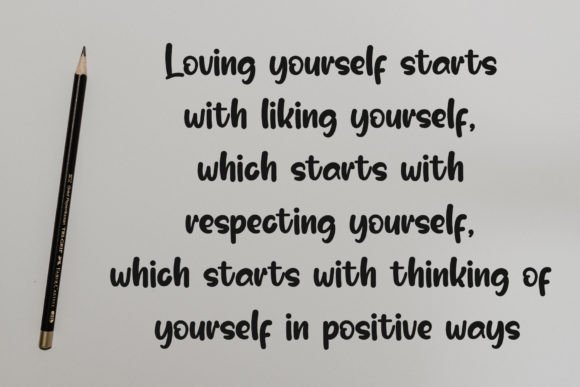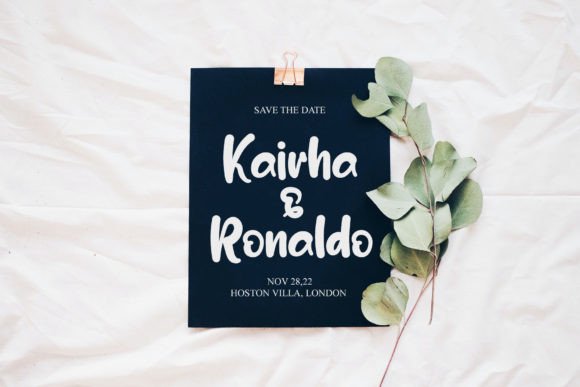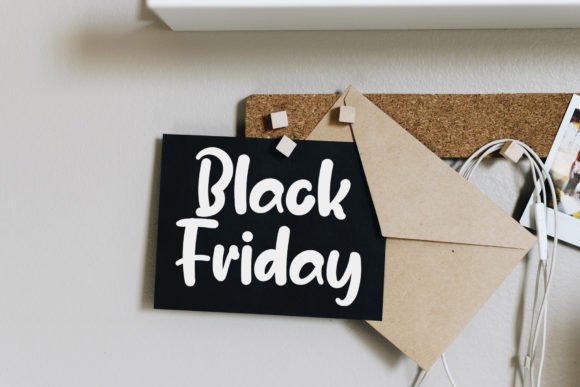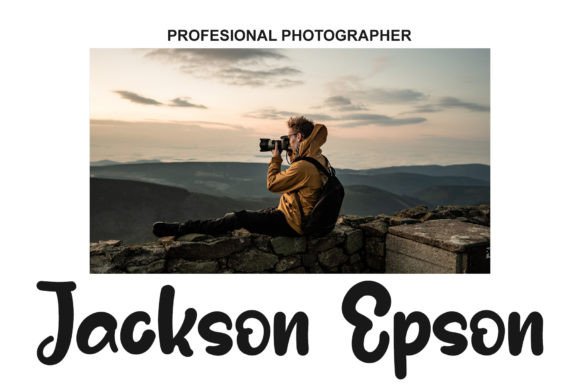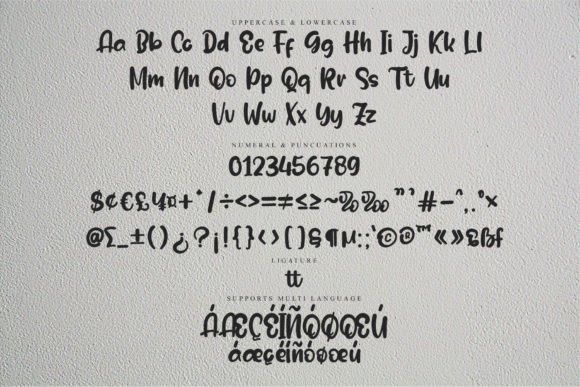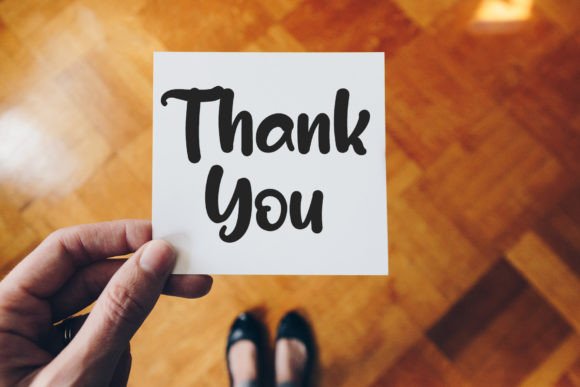
Introducing Garment Font: Elevate Your Designs with Elegance
Are you a designer, crafter, or DIY enthusiast looking for a font that can add a touch of sophistication to your projects? Look no further than Garment Font, a stunning display font perfect for magazines, crafts, and more. With its elegant and refined aesthetic, Garment Font is sure to become a staple in your fonts library.
What is Garment Font?
Garment Font is a beautiful display font designed to make a statement. Its unique and intricate design makes it perfect for a variety of applications, from magazine headlines to craft project titles. Whether you’re looking to add a touch of luxury to your designs or simply want to create something that stands out, Garment Font is the perfect choice.
Key Features of Garment Font
- Elegant Design: Garment Font features an elegant and refined design that’s perfect for high-end applications.
- Display Font: As a display font, Garment Font is designed to make a statement and grab attention.
- Magazine-Ready: With its clear and legible design, Garment Font is perfect for magazine headlines, titles, and more.
- Craft-Friendly: Garment Font is also perfect for craft projects, such as papercraft, scrapbooking, and more.
Why Choose Garment Font?
There are many fonts to choose from, but Garment Font stands out from the rest. Here are just a few reasons why:
- Unique Design: Garment Font features a unique and distinctive design that’s sure to set your projects apart.
- Versatile: Garment Font can be used in a variety of applications, from digital designs to print projects.
- Easy to Use: With its clear and legible design, Garment Font is easy to use and pairs well with a variety of other fonts.
Tips for Using Garment Font
Here are a few tips for getting the most out of Garment Font:
- Pair with Other Fonts: Garment Font pairs well with a variety of other fonts, including sans-serif and script fonts.
- Experiment with Colors: Garment Font looks great in a variety of colors, from bold and bright to soft and pastel.
- Use for Headlines: Garment Font is perfect for headlines and titles, but can also be used for body text in smaller sizes.
Garment Font is a beautiful display font that’s perfect for designers, crafters, and DIY enthusiasts. With its elegant and refined aesthetic, Garment Font is sure to elevate your designs and add a touch of sophistication. Whether you’re looking to create a stunning magazine headline or a beautiful craft project, Garment Font is the perfect choice. So why wait? Add Garment Font to your fonts library today and start creating spectacular designs!